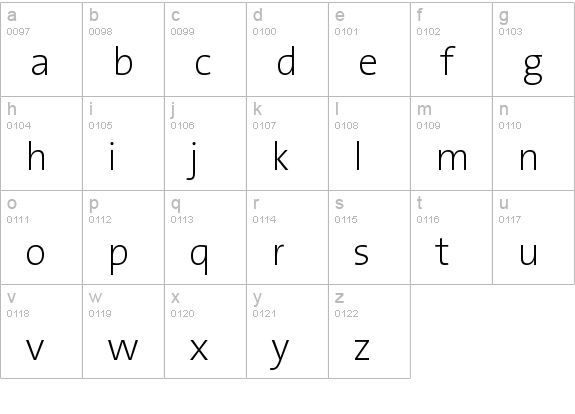
TheSans B2 ExtraLight Font Details
TheSans B2 ExtraLight is an airy, ultra-refined variant in the TheSans typeface family \xE2\x80\x94 well suited to minimalist headlines and refined display use.
TheSans B2 ExtraLight font is a stunningly elegant and versatile typeface that effortlessly combines modernity with sophistication. With its delicate and refined strokes, this font exudes a sense of lightness and grace, making it perfect for designs that require a touch of subtlety. TheSans B2 ExtraLight font is truly a standout choice for any project that demands a contemporary and stylish look. Its clean lines and minimalistic design make it highly legible, ensuring that your message will be clear and easily understood by readers. Whether you are designing a logo, creating a website, or crafting a magazine layout, this font will enhance the overall visual appeal of your work. One of the most remarkable aspects of TheSans B2 ExtraLight font is that it is freely available to download at FontsMarket.com. This means that you can effortlessly access this exceptional font and incorporate it into your designs without any financial constraints. Its availability as a free download makes it an invaluable resource for designers, allowing them to create stunning visuals without breaking the bank. In addition to its aesthetic appeal and affordability, TheSans B2 ExtraLight font also offers a wide range of characters and symbols, ensuring that you have all the tools you need to bring your creative vision to life. Whether you are working on a project that requires standard Latin characters or one that demands special symbols, this font has got you covered. So, if you are searching for a font that combines elegance, versatility, and affordability, look no further than TheSans B2 ExtraLight font. Download it for free at FontsMarket.com and let your creativity soar to new heights. With this font in your design arsenal, you can be confident that your work will captivate and inspire audiences, leaving a lasting impression.